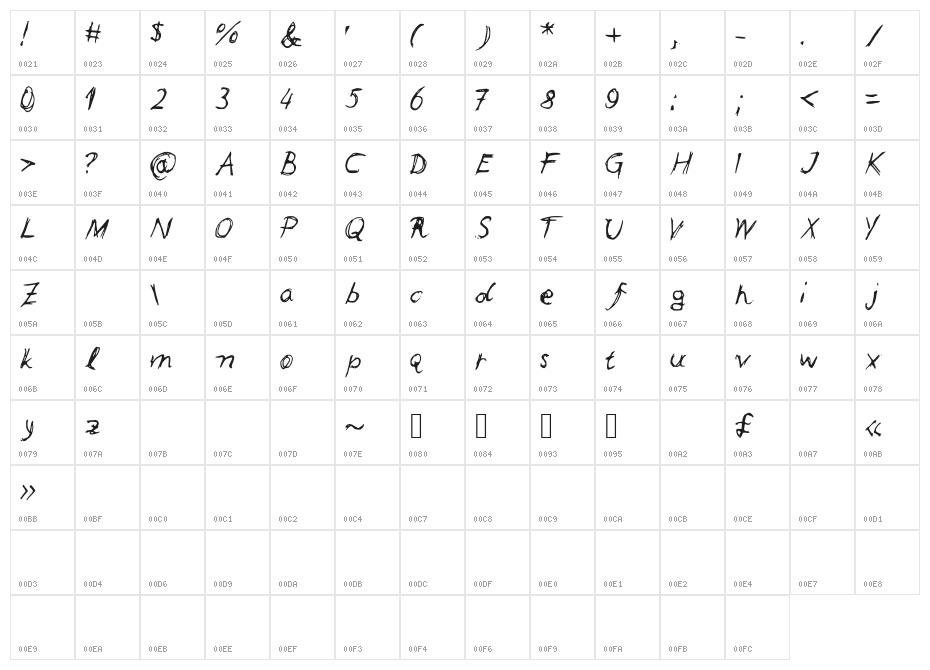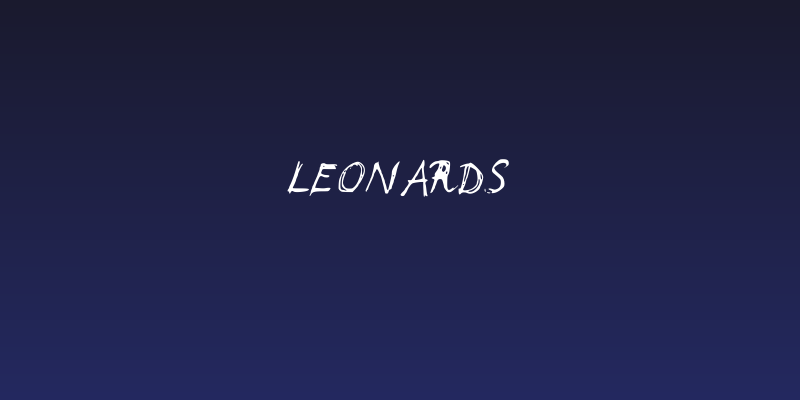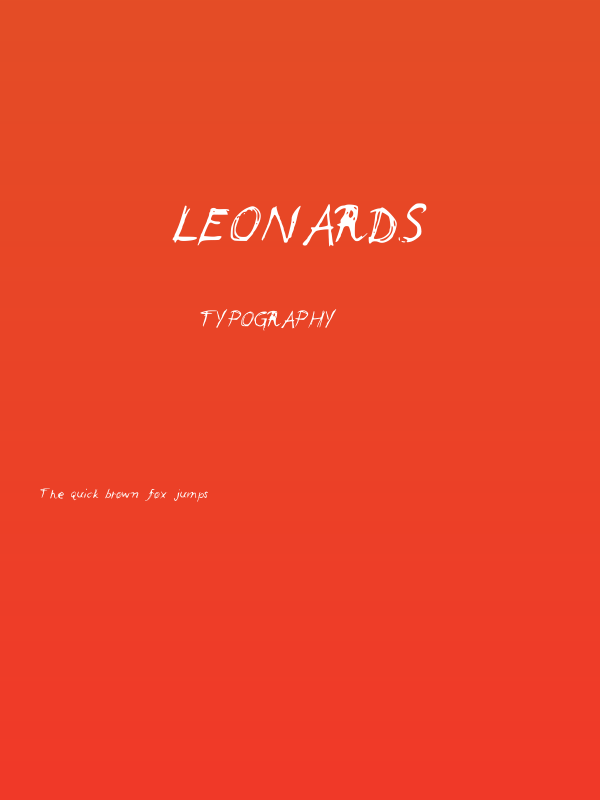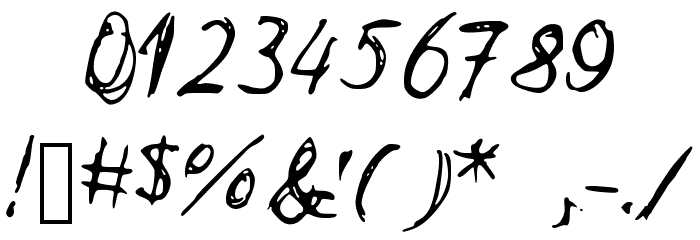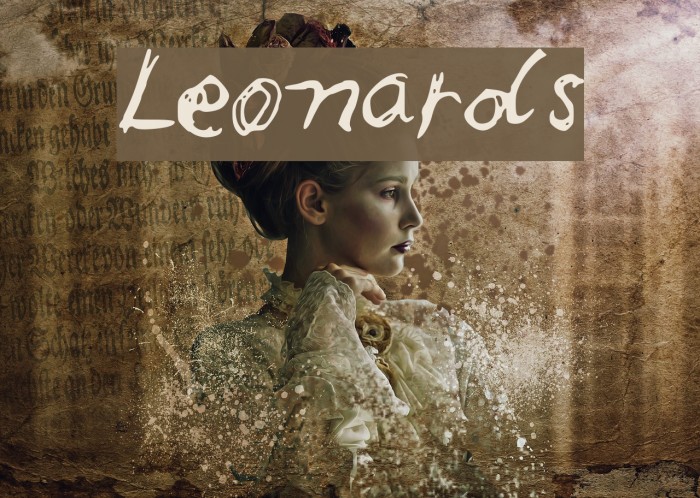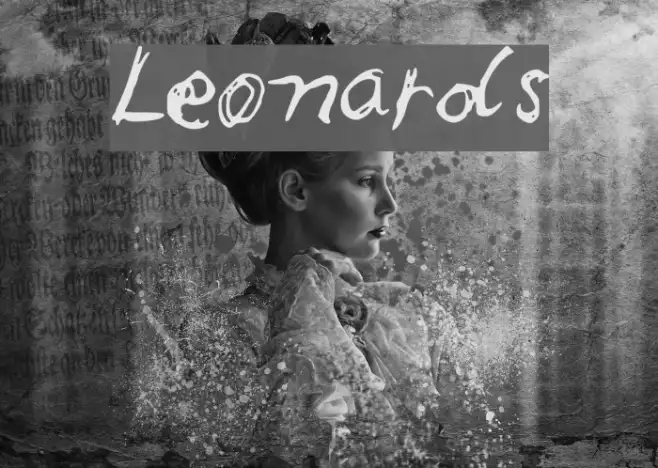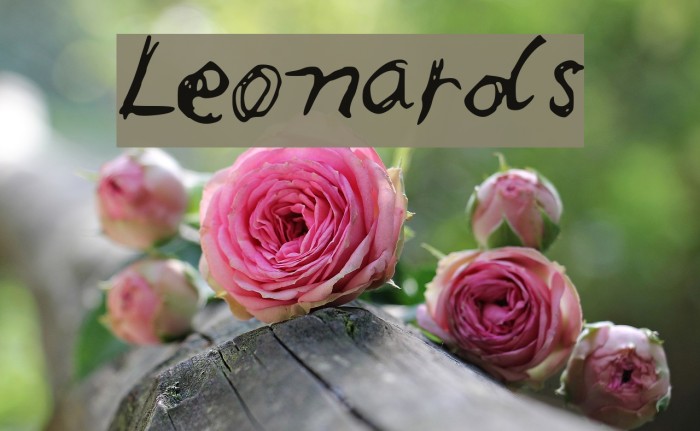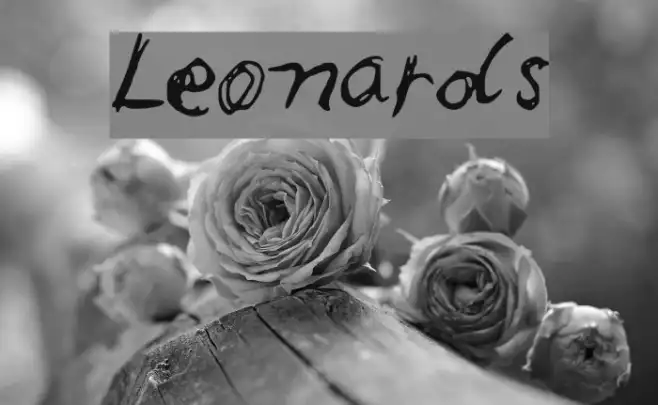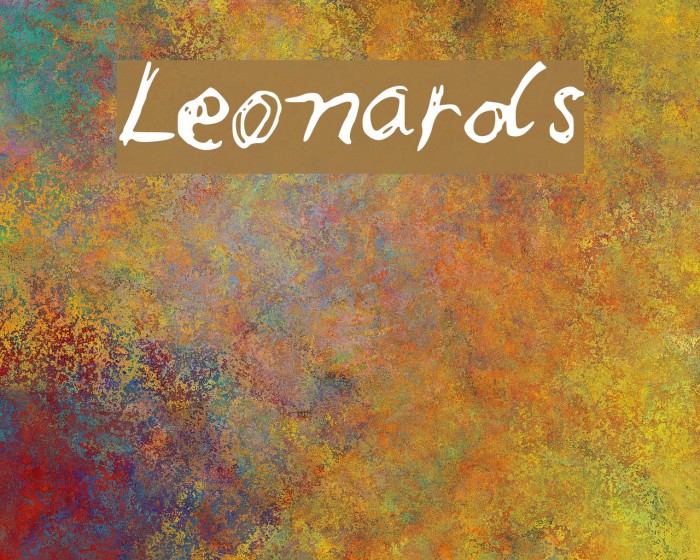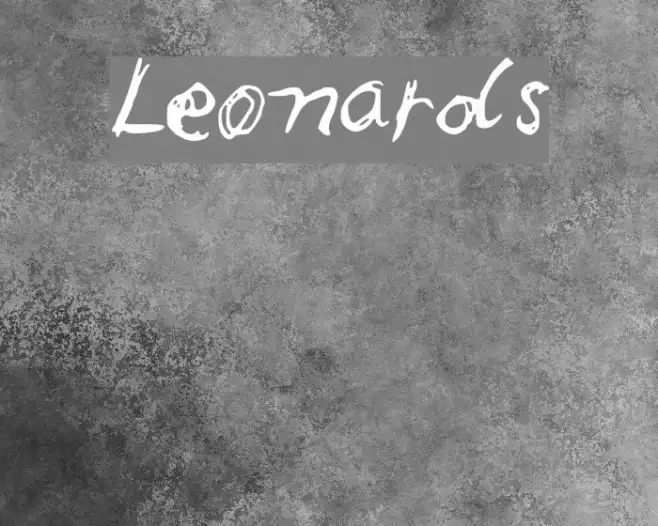
Leonards Font
This font features a dynamic and expressive handwritten style, characterized by its fluid and irregular strokes. The letters exhibit a sense of movement and energy, with varying thicknesses that add to its artistic flair. The uppercase letters are bold and striking, while the lowercase letters maintain a more casual and relaxed appearance. Numbers and special characters are crafted with the same attention to detail, ensuring consistency throughout. This font's unique style makes it ideal for creative projects that require a personal touch.
| Proposed Projects | Ideal for greeting cards, invitations, artistic posters, and branding that requires a personal and creative touch. |